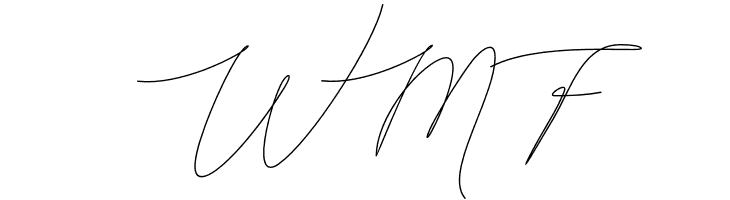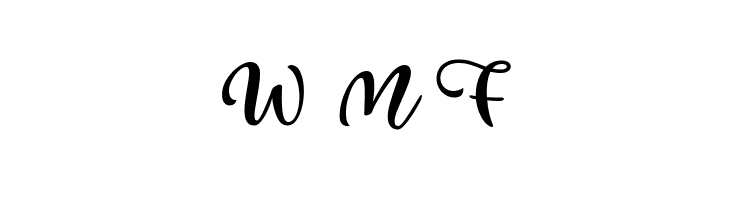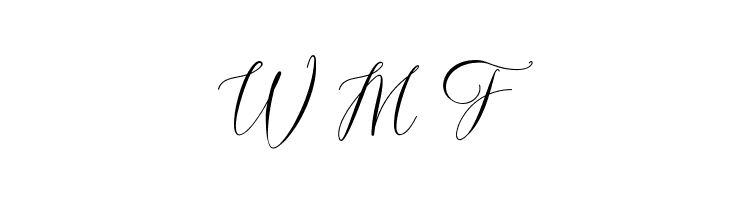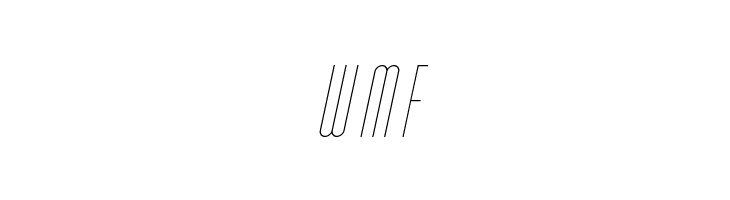
( Peter Wiegel - www.peter-wiegel.de/ )
A bold, gothic blackletter font with intricate detailing and a medieval aesthetic.
( Pointlab Studio - creativemarket.com/pointlab )
A graceful, handwritten script font with elegant curves and a calligraphic style.
( Pollem Studio - Muhammad Nur - www.creativefabrica.com/designer/polem/ref/2050/ )
A stylish cursive script font with elegant, flowing strokes.
( Porapak Apichodilok )
A fluid and elegant handwritten font with dynamic, flowing letterforms.
( PutraCetol Studio - Putra Novembria Candra Kusuma - creativemarket.com/putracetol )
A flowing, cursive script with a handwritten aesthetic.
( Rahmat Hidayat )
An elegant and flowing script font with graceful curves and loops.
( Rahmat Hidayat )
A decorative cursive font with elegant loops and flourishes.
( Rifan Asri )
An elegant, flowing script font with thin, delicate strokes and graceful curves.
( Rifan Asri )
An elegant, flowing script font with ornate uppercase and cohesive lowercase letters.
( Roland Huse Design - Roland Huse - rolandhuse.com )
A cursive, elegant font with flowing, interconnected characters.
( Rometheme - Yahdi Kumala - creativemarket.com/Rometheme?u=Rometheme )
An elegant script font with flowing, ornate cursive letters and intricate swashes.
( Siwox Studios - bit.ly/saffatinmyfonts )
A flowing, cursive script font with elegant, connected letters.
( Skeddles - Sam Keddy - samkeddy.com/ )
( Solidtype - bit.ly/2OxZn2V )
A sophisticated script font with flowing, interconnected characters and elegant flourishes.
( Sronstudio - Yusron Billah )
A cursive, handwritten-style font with elegant, flowing characters.
( Sronstudio - Yusron Billah )
A flowing, cursive script with elegant loops and swashes.
( Steve Gardner - www.explogos.com )
A bold, modern font with geometric influences and sharp, angular characters.
( Studio Typo - www.studiotypo.com )
A sleek, elongated, and italic font with thin strokes and a modern aesthetic.
( Syahputra - creativemarket.com/Bexxtype )
An elegant script font with flowing, intricate loops and high contrast strokes.
( Syahputra - creativemarket.com/Bexxtype )
An elegant script font with flowing, interconnected letters and decorative swashes.
( Tama Putra - be.net/tmptr )
An elegant, cursive script font with flowing, ornate characters.
( Tama Putra - be.net/tmptr )
A cursive, handwritten-style font with elegant, flowing strokes.
( Thirtypath - www.thirtypath.com )
A bold, flowing script font with elegant, cursive letterforms.
( Thirtypath - www.thirtypath.com )
An elegant and decorative script font with flowing cursive letters and intricate flourishes.
( Tobias Battenberg - www.tobias-battenberg.de )
A bold, geometric font with blocky, angular letterforms and a modern industrial style.
( Tom Chalky - tomchalky.com/ )
A dynamic handwritten font with expressive, fluid strokes.
( Tyler Finck - www.finck.co )
A pixelated, blocky font with a retro digital aesthetic.
( TypeLand - Digidea Lee - typeland.com/ )
A bold, dynamic brush script with expressive, hand-painted strokes.
( Typhoon Type - Suthi Srisopha - www.typhoontype.net )
A dynamic and flowing script font with elegant cursive letterforms.
( Typhoon Type - Suthi Srisopha - www.typhoontype.net )
A playful, modern script font with a handwritten feel and elegant curves.
( Vladimir Nikolic - www.coroflot.com/vladimirnikolic )
( Wacaksara Co - www.wacaksara.co )
An elegant and flowing script font with classic cursive letterforms.
( Weape Design - creativemarket.com/weape?u=weape )
A graceful script font with flowing, connected strokes and elegant curves.
( Xerographer Fonts - Max Infeld - xerographer.blogspot.com )
A dynamic and fluid script font with an elegant italic slant.
( Xerographer Fonts - Max Infeld - xerographer.blogspot.com )
An elegant script font with intricate loops and swirls, perfect for artistic projects.